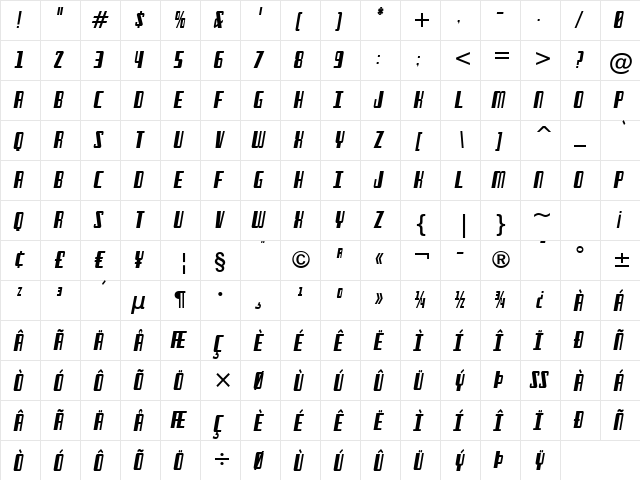
Freezer BTN Condensed Oblique Font Preview
Design Context for Freezer BTN Condensed Typeface
Freezer BTN Condensed is a composed and adaptable typeface that performs quietly and consistently across a wide range of design contexts. Its italic angle brings a sense of urgency and motion to the letterforms. Its narrow stance lets it pack a punch even in space-constrained designs.